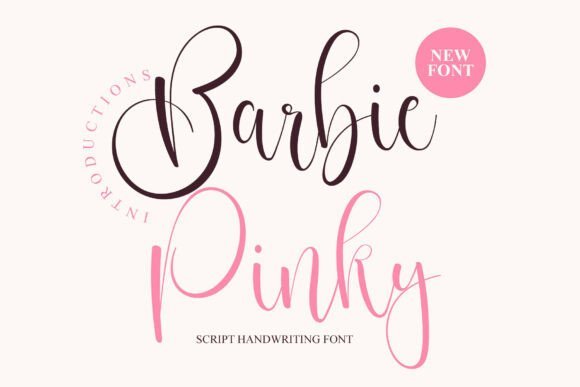
Enter the elegant script handwriting font, Barbie Pinky Font. This stunning font is designed to evoke confidence and sophistication, making it the perfect choice for projects that require a commanding presence. With its smooth curves and dynamic flow, Barbie Pinky Font adds a touch of personality and power to any design, setting it apart from other fonts on the market.
Barbie Pinky Font Key Features
- Font Family: Barbie Pinky is a custom font designed for a specific brand, it is not a widely available font family.
- Unique Characteristics: The Barbie Pinky font features a distinctive, playful, and feminine design, with a focus on bold and colorful typography.
- Color Palette: Available in a range of bright, pastel colors, including pink, blue, yellow, and purple, allowing for customization and personalization.
Barbie Pinky Font Review
Overall, I think the Barbie Pinky Font is a fun, playful font that can add a touch of whimsy to your designs. ✨ It’s perfect for projects that require a feminine, youthful feel, such as children’s books, wedding invitations, or social media graphics.
Here are some things that work well with the Barbie Pinky Font:
- Unique and recognizable – the font’s distinctive style is sure to grab attention.
- Fun and energetic – perfect for conveying a carefree, playful vibe.
- Good for small text – the font’s bold lines make it easy to read even at small sizes.
- Not ideal for serious or professional projects – the font’s playful style may come across as unprofessional.
- Can be difficult to read at large sizes – the font’s bold lines can become overwhelming at larger sizes.
- Limited flexibility – the font’s style is quite fixed, so it may not be suitable for projects that require a lot of customization.
Overall, I think the Barbie Pinky Font is a fun, lighthearted font that can add a touch of personality to your designs. While it may not be suitable for every project, it’s a great choice for projects that require a playful, youthful feel.
Tips for Getting the Most Out of the Barbie Pinky Font
1. Use the font in bold or italic styles to add emphasis to your text.
2. Combine the font with other playful fonts for a fun and creative look.
3. Use the font in conjunction with bright and bold colors to create a visually appealing design.
The Barbie Pinky Font is perfect for:
1. Creating playful and eye-catching headlines.
2. Designing children’s products or packaging.
3. Adding a touch of whimsy to social media graphics or blog posts.
Alternatives to Barbie Pinky Font
Great Vibes Font is a modern, elegant script font that is perfect for creating a luxurious and sophisticated look. It’s ideal for use in wedding invitations, fashion magazines, and high-end branding materials. Compared to Barbie Pinky Font, Great Vibes Font has a more refined and polished appearance, making it suitable for a wider range of applications.
Pacifico Font is a beautiful, cursive font that evokes the feeling of a tropical paradise. It’s perfect for use in beach-themed branding, travel brochures, and summer-themed advertising campaigns. While Barbie Pinky Font is more playful and bubbly, Pacifico Font has a more relaxed and laid-back vibe, making it ideal for creating a carefree atmosphere.
Alex Brush Font is a elegant, handwritten font that is perfect for creating a personal and emotional connection with the audience. It’s ideal for use in invitations, greeting cards, and emotional branding materials. Compared to Barbie Pinky Font, Alex Brush Font has a more delicate and refined appearance, making it suitable for applications where a softer touch is required.